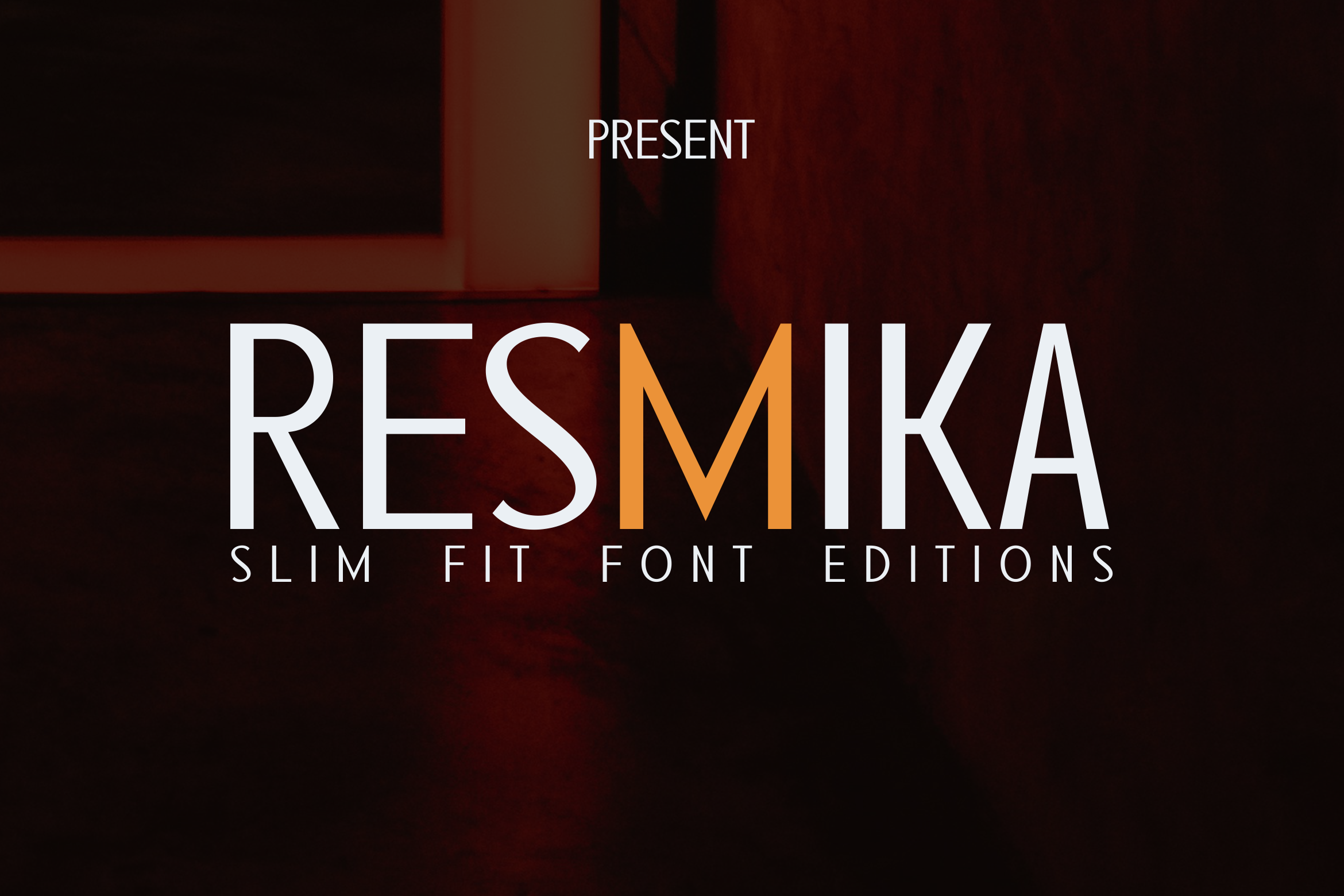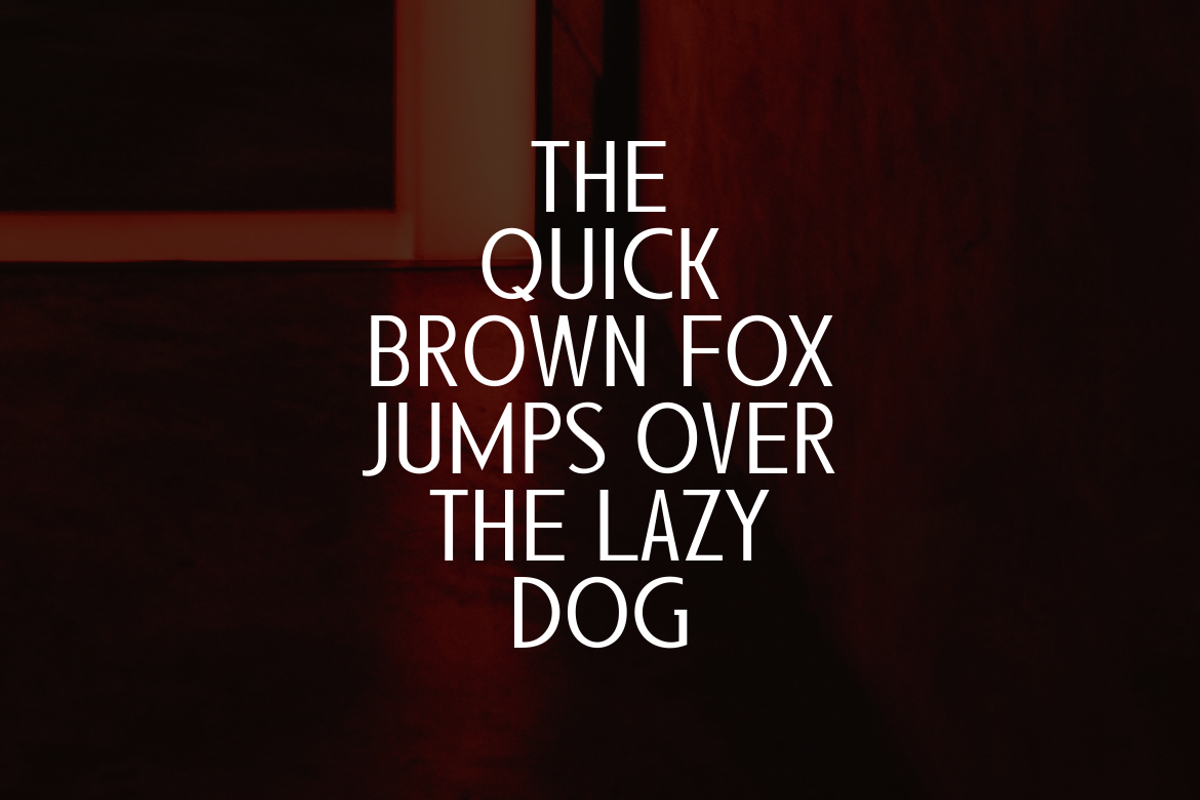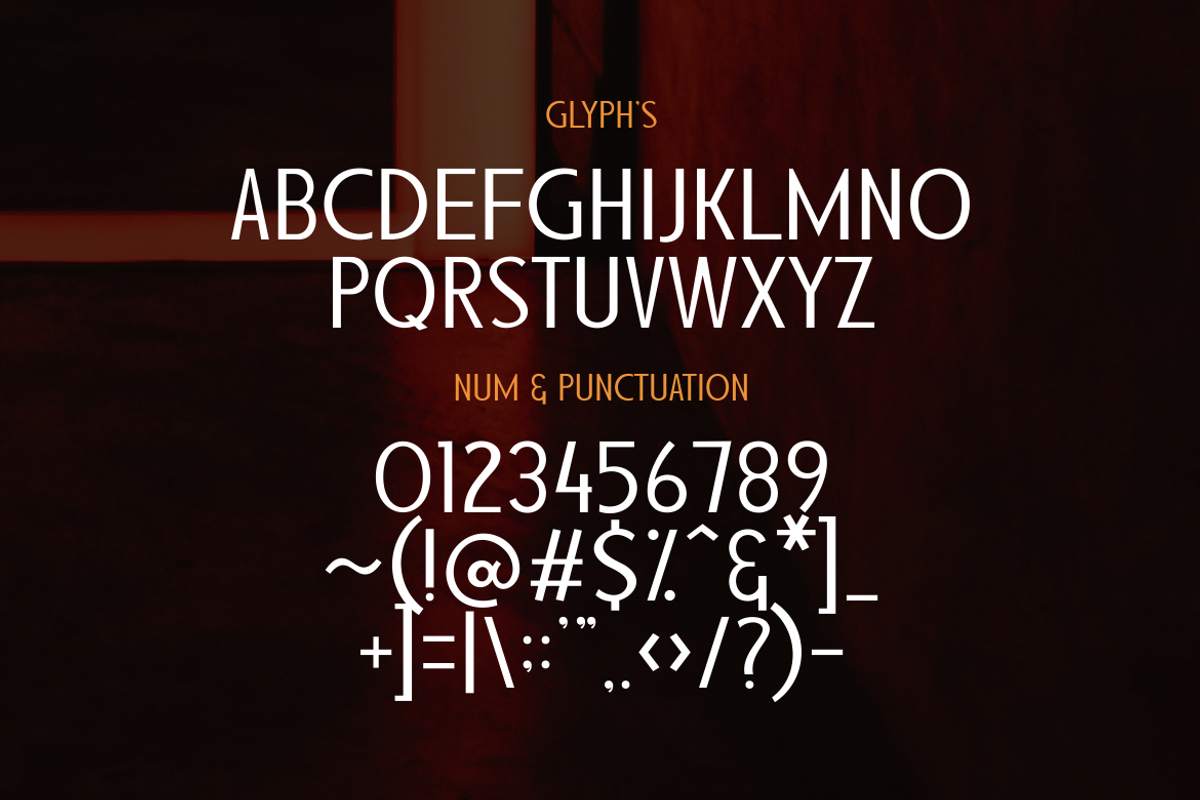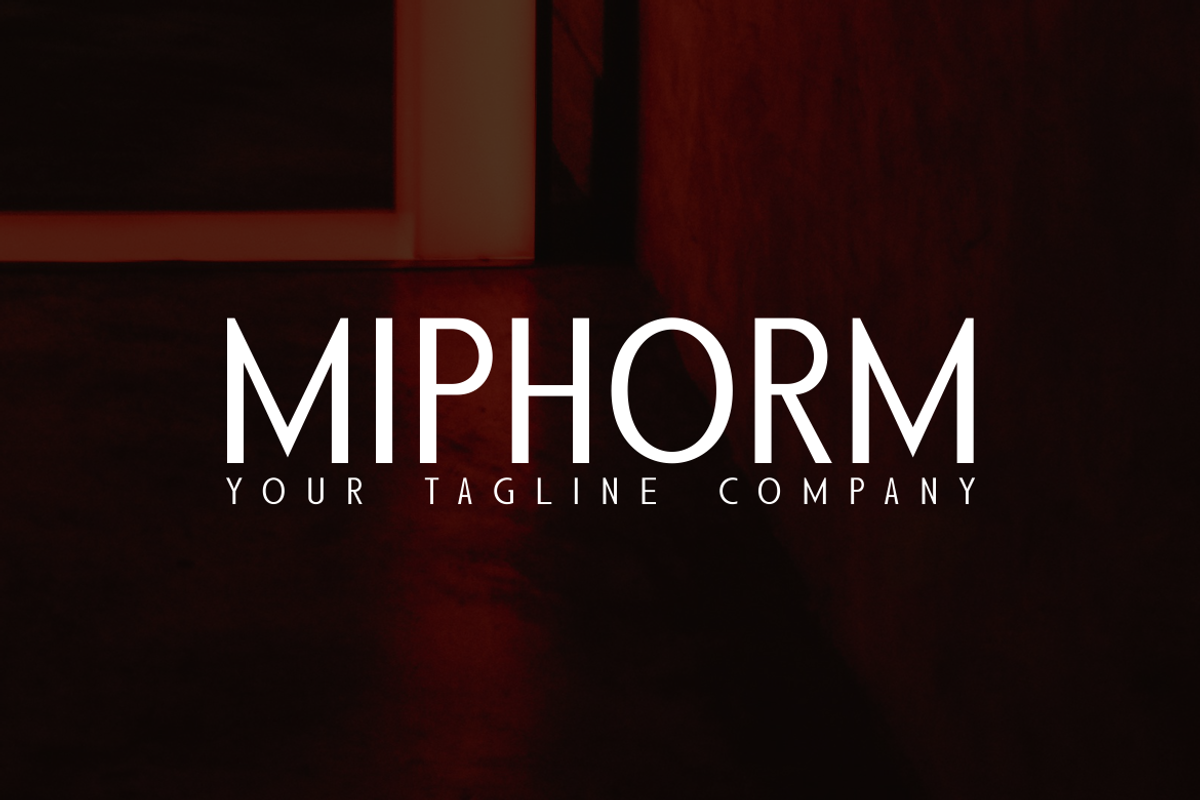
RESMIKA - Slim Fit Font
RESMIKA – Slim Fit Font Edition
A sleek, modern typeface crafted for high-end fashion brands, adult magazines, striking slogans, and captivating covers. With its slim yet confident style, RESMIKA adds elegance and edge to every design. Ideal for both print and digital use. Provided in OTF and TTF formats for maximum compatibility.